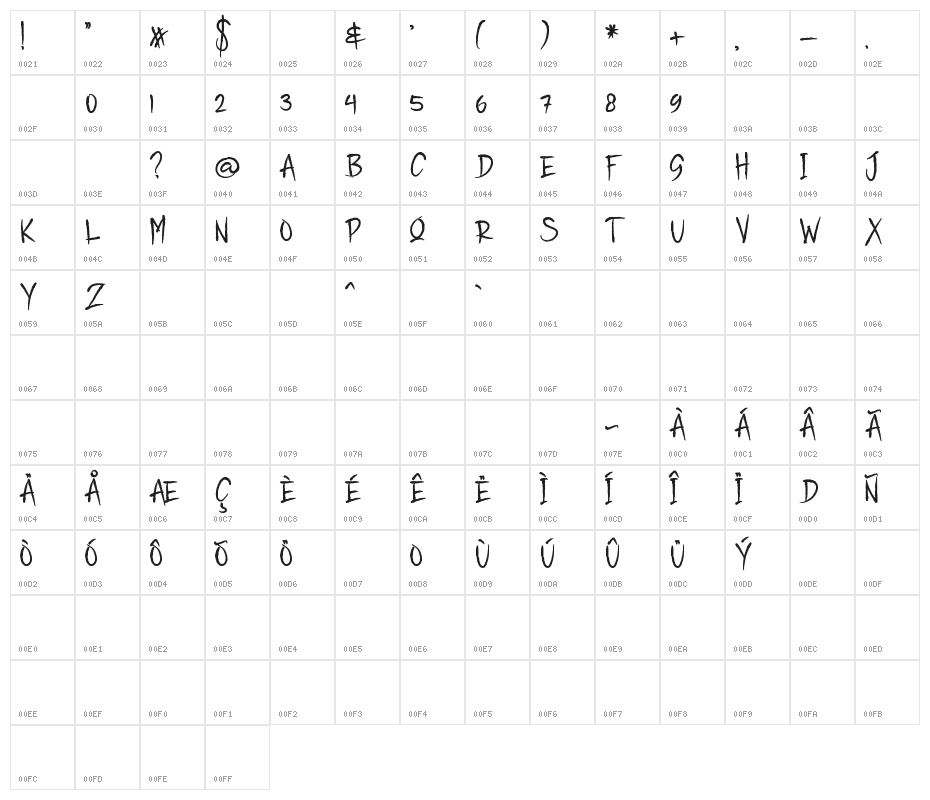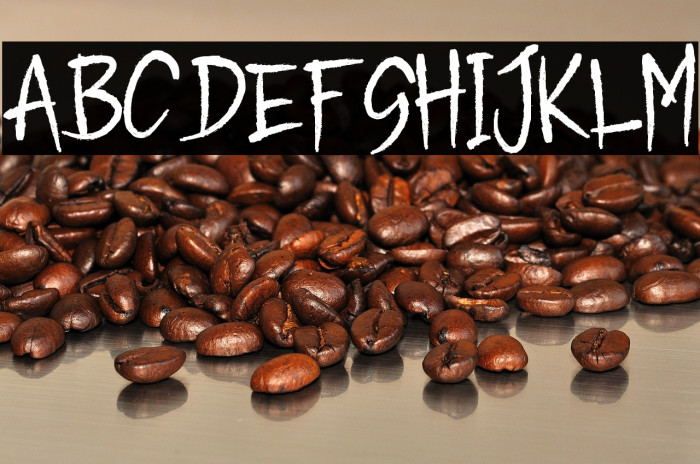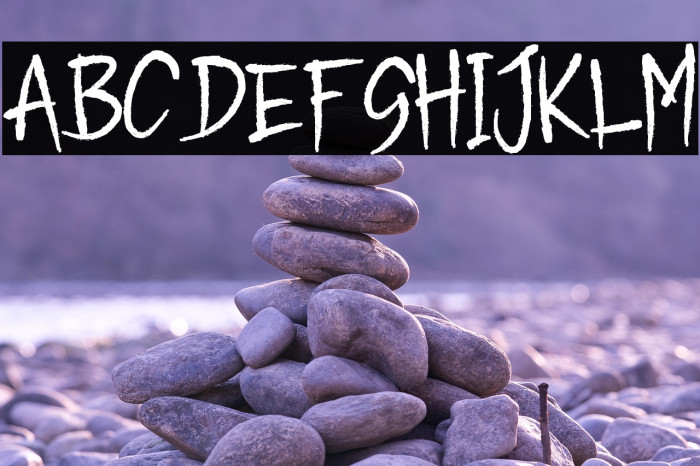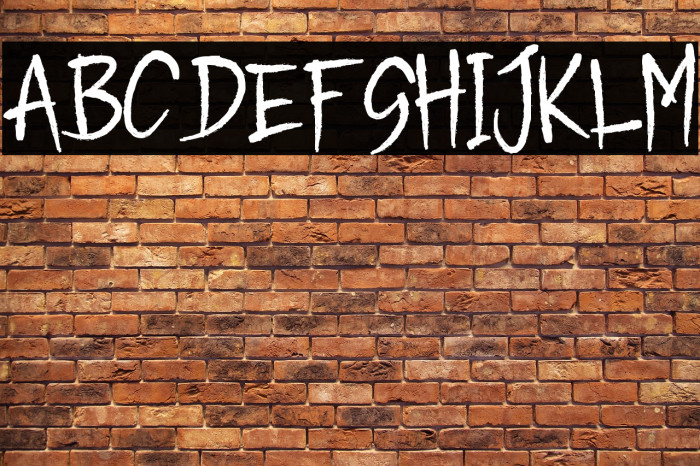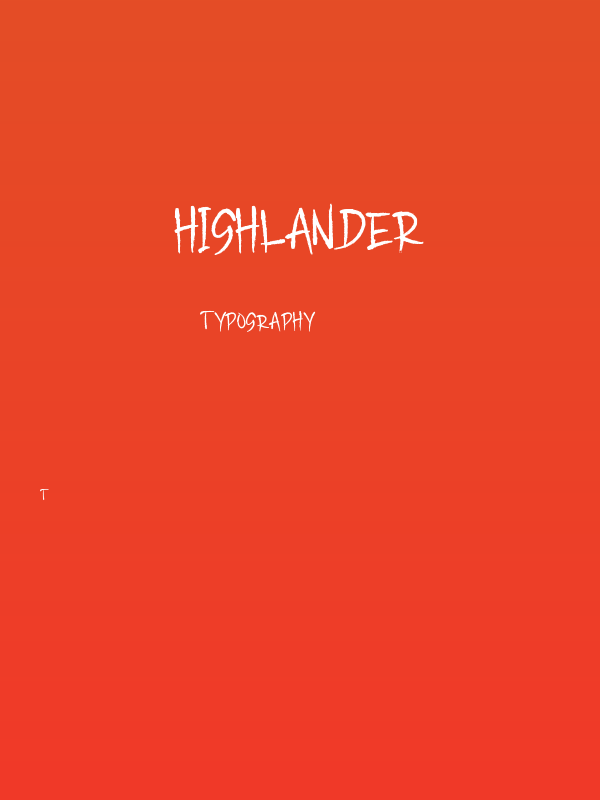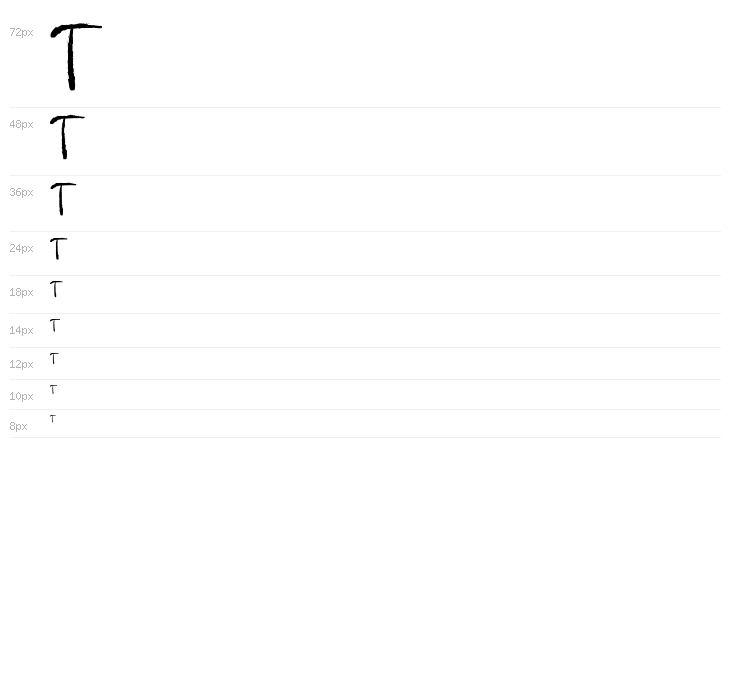
HIGHLANDER Font
HIGHLANDER Description
This font features a bold, hand-drawn style with a playful and energetic feel. The letters are slightly irregular, giving it a casual and informal appearance. The strokes are thick and uneven, adding to its dynamic and lively character. The uppercase letters are prominent and expressive, while the numbers and special characters maintain the same spirited style. This font is ideal for projects that require a personal touch or a sense of spontaneity.